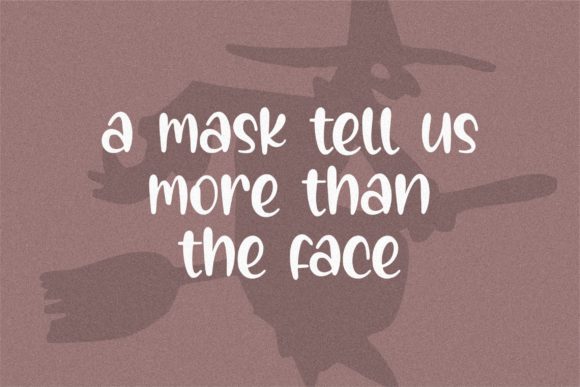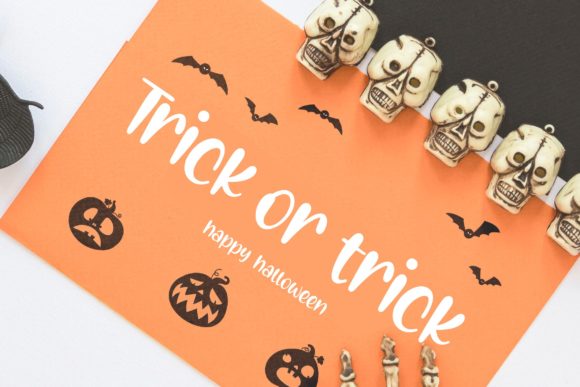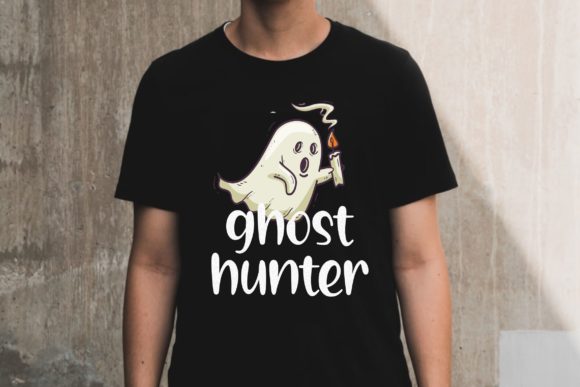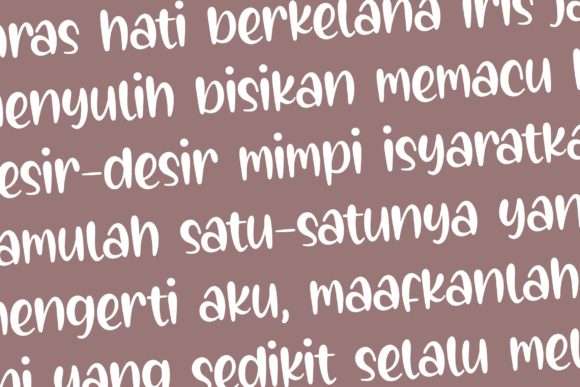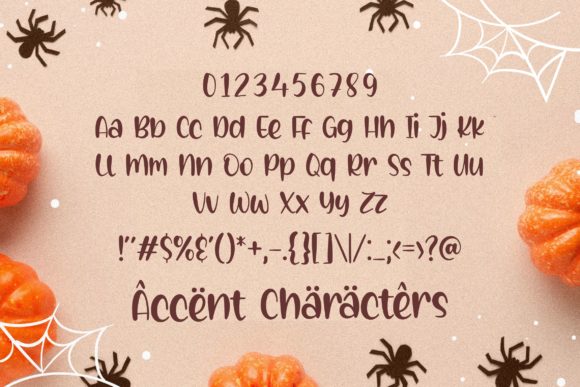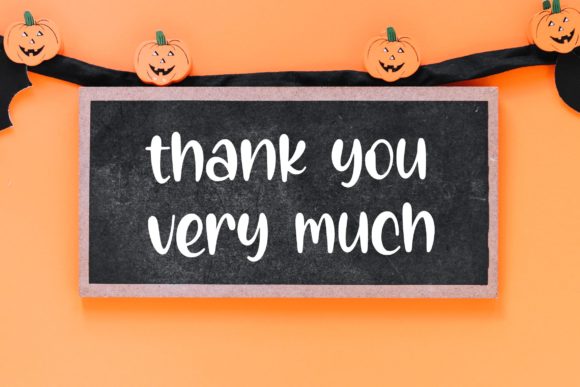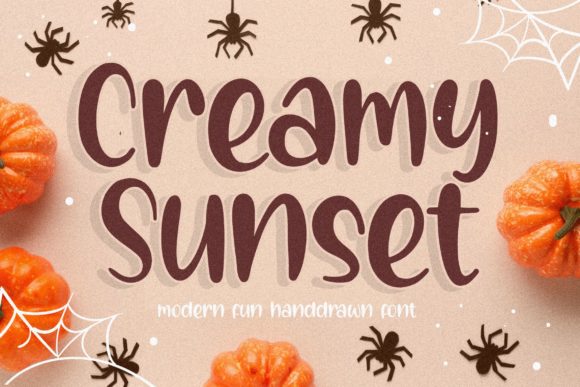
Creamy Sunset Font: Elevate Your Designs with Elegance
Are you searching for a font that can add a touch of sophistication and timelessness to your designs? Look no further than the Creamy Sunset Font. This beautiful, flowing script font is perfect for designers and crafters who want to create stunning visuals that capture the essence of elegance.
What is Creamy Sunset Font?
Creamy Sunset is a round lettered handwritten font that boasts an elegant touch. Its distinct and classic style makes it an excellent choice for a wide range of design projects, from branding and advertising to packaging and digital media. With its smooth, flowing lines and beautiful letterforms, Creamy Sunset Font is sure to make your designs stand out.
Key Features of Creamy Sunset Font
- Flowing Script Style: Creamy Sunset Font features a beautiful, flowing script style that adds a touch of elegance to any design.
- Round Lettered: The font’s round lettered design makes it perfect for creating soft, romantic visuals.
- Handwritten: With its handwritten feel, Creamy Sunset Font brings a personal touch to your designs.
- Timeless Style: The font’s classic style ensures that your designs will remain timeless and relevant for years to come.
Why Choose Creamy Sunset Font?
There are many reasons why designers and crafters choose Creamy Sunset Font for their projects. Here are just a few:
- Unique Style: Creamy Sunset Font has a unique and distinct style that sets it apart from other fonts.
- Elegant Touch: The font’s elegant touch makes it perfect for creating sophisticated and high-end designs.
- Versatile: Creamy Sunset Font can be used for a wide range of design projects, from digital media to print materials.
- Easy to Read: Despite its elegant style, Creamy Sunset Font is easy to read, making it perfect for body text and headlines.
How to Use Creamy Sunset Font
Creamy Sunset Font is perfect for a wide range of design projects, including:
- Branding and Advertising: Use Creamy Sunset Font to create stunning logos, business cards, and ad campaigns.
- Packaging Design: Add a touch of elegance to your packaging designs with Creamy Sunset Font.
- Digital Media: Use Creamy Sunset Font to create beautiful social media graphics, blog posts, and website headers.
- Crafting and Scrapbooking: Add a personal touch to your crafting and scrapbooking projects with Creamy Sunset Font.
Tips and Tricks for Using Creamy Sunset Font
Here are a few tips and tricks for getting the most out of Creamy Sunset Font:
- Pair with Bold Fonts: Pair Creamy Sunset Font with bold fonts to create stunning contrast and visual interest.
- Use for Headlines and Titles: Use Creamy Sunset Font for headlines and titles to add a touch of elegance to your designs.
Creamy Sunset Font is a beautiful and elegant script font that is perfect for designers and crafters who want to create stunning visuals. With its flowing script style, round lettered design, and timeless style, Creamy Sunset Font is sure to elevate your designs to the next level. Whether you’re working on a branding project, packaging design, or digital media, Creamy Sunset Font is a versatile and elegant choice.